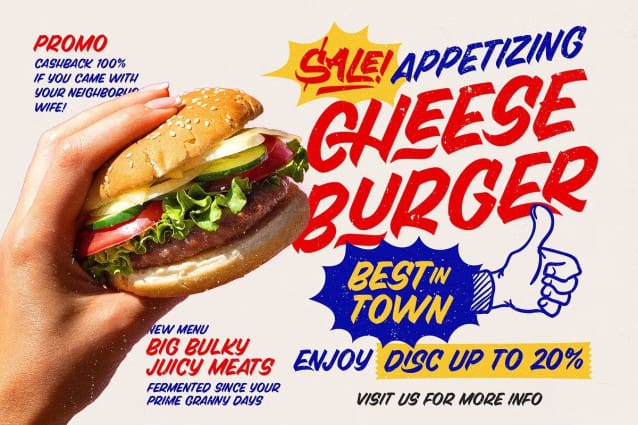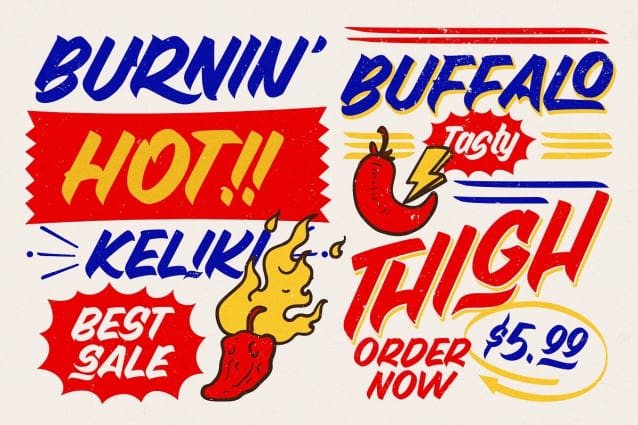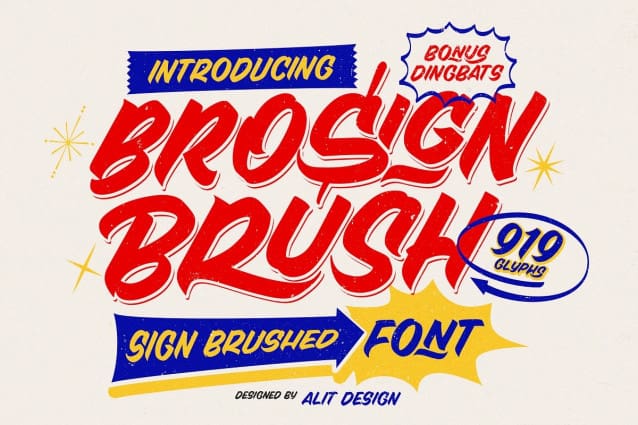
Brosign Brush Font
BroSign Brush Font, a meticulously crafted vintage font inspired by the fluid, artistic strokes of traditional sign painting. Designed to evoke the classic charm of hand-lettered signs, this typeface brings the spontaneity and dynamism of brush strokes to your digital toolbox, offering a smooth and authentic feel that’s perfect for a wide range of creative projects.